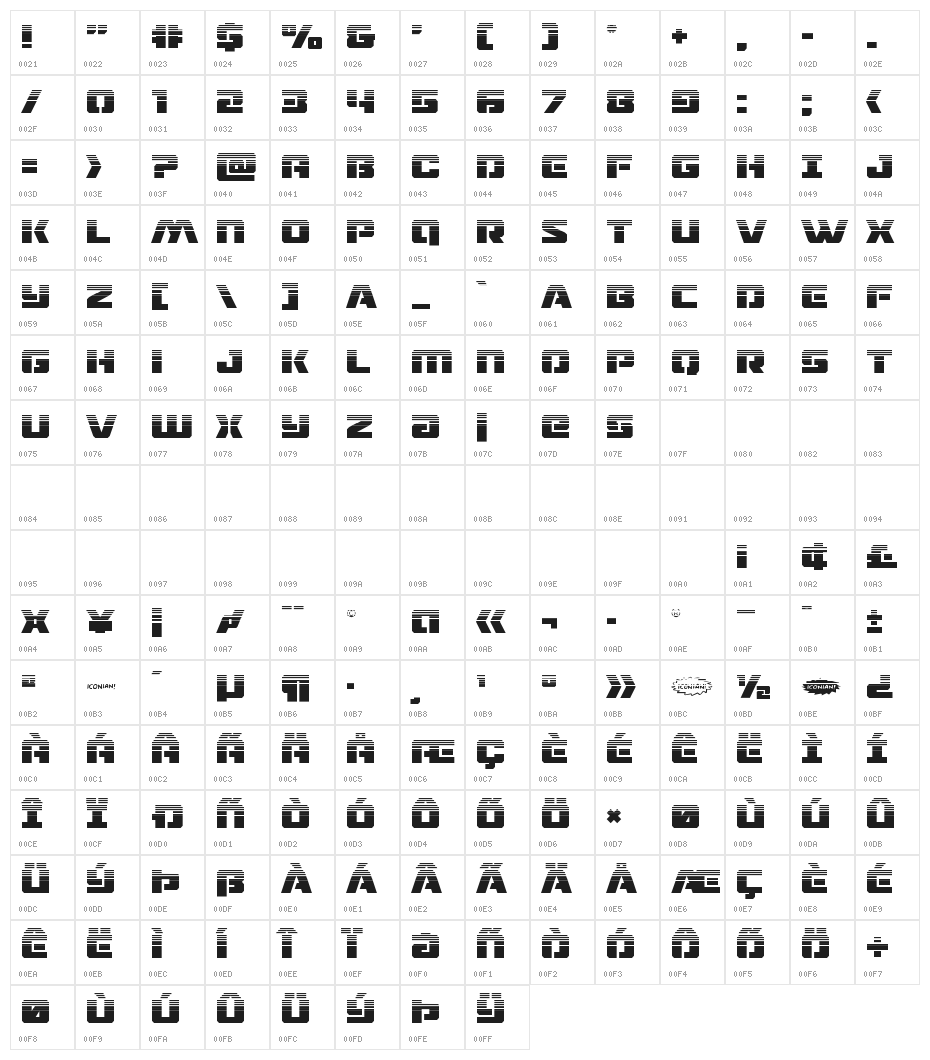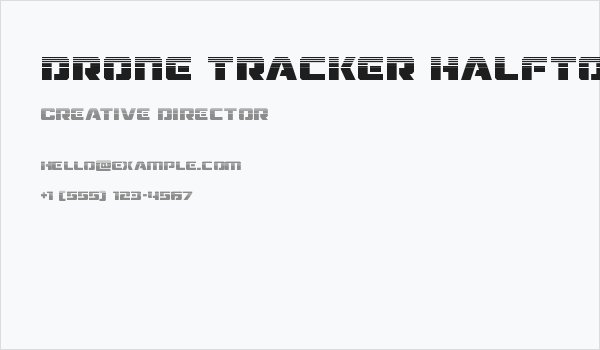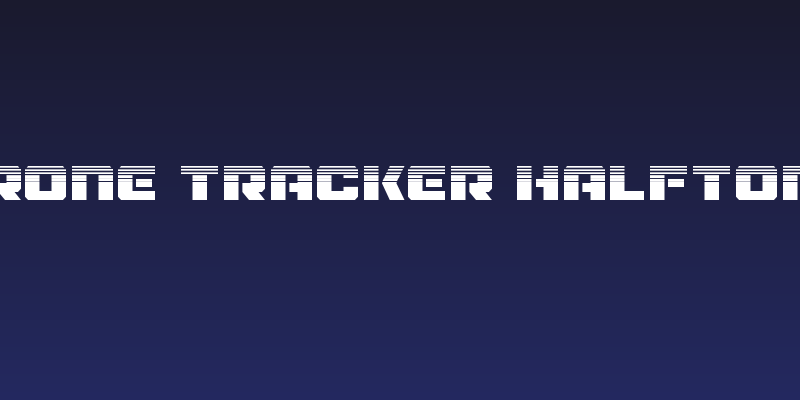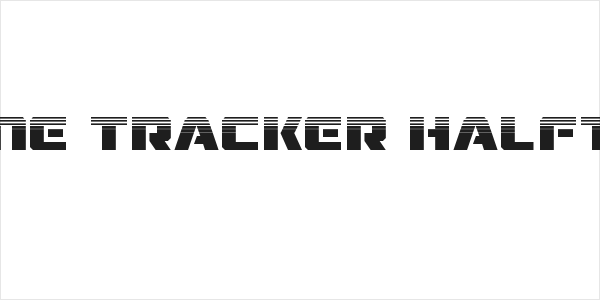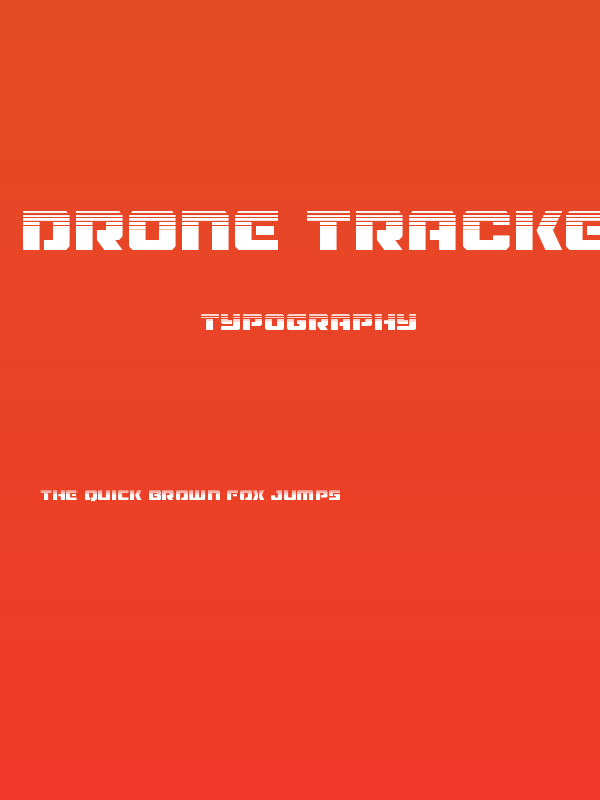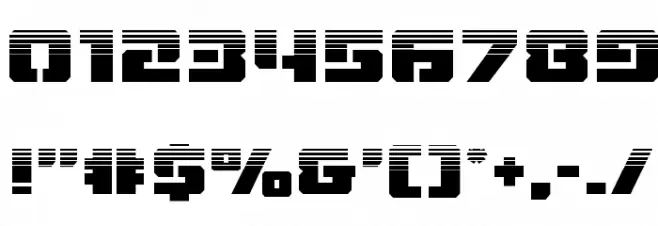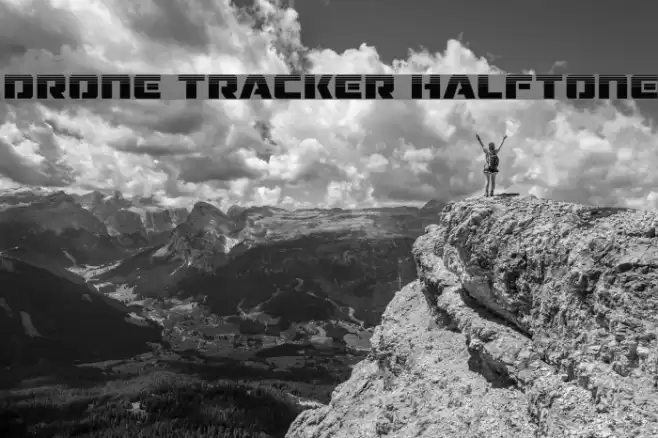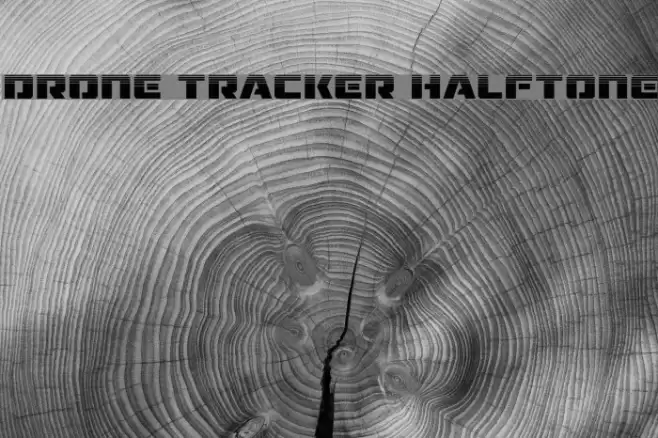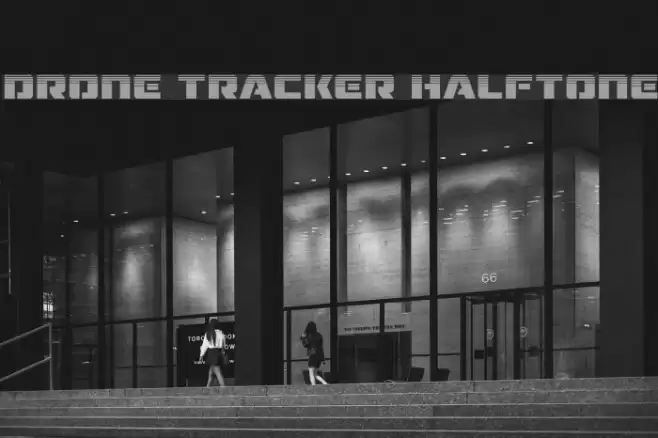
Drone Tracker Halftone Font
Drone Tracker Halftone Description
This font features a bold and futuristic design with a halftone effect that gives it a dynamic and tech-inspired appearance. The characters are constructed with solid, block-like shapes that are intersected by horizontal lines, creating a sense of movement and speed. This unique style is reminiscent of digital displays or sci-fi aesthetics, making it ideal for projects that require a modern and edgy look. The uppercase and lowercase letters maintain a consistent style, while the numbers and special characters complement the overall design, ensuring versatility across various applications.
| Proposed Projects | Ideal for tech branding, sci-fi movie posters, video game titles, and digital interfaces. |